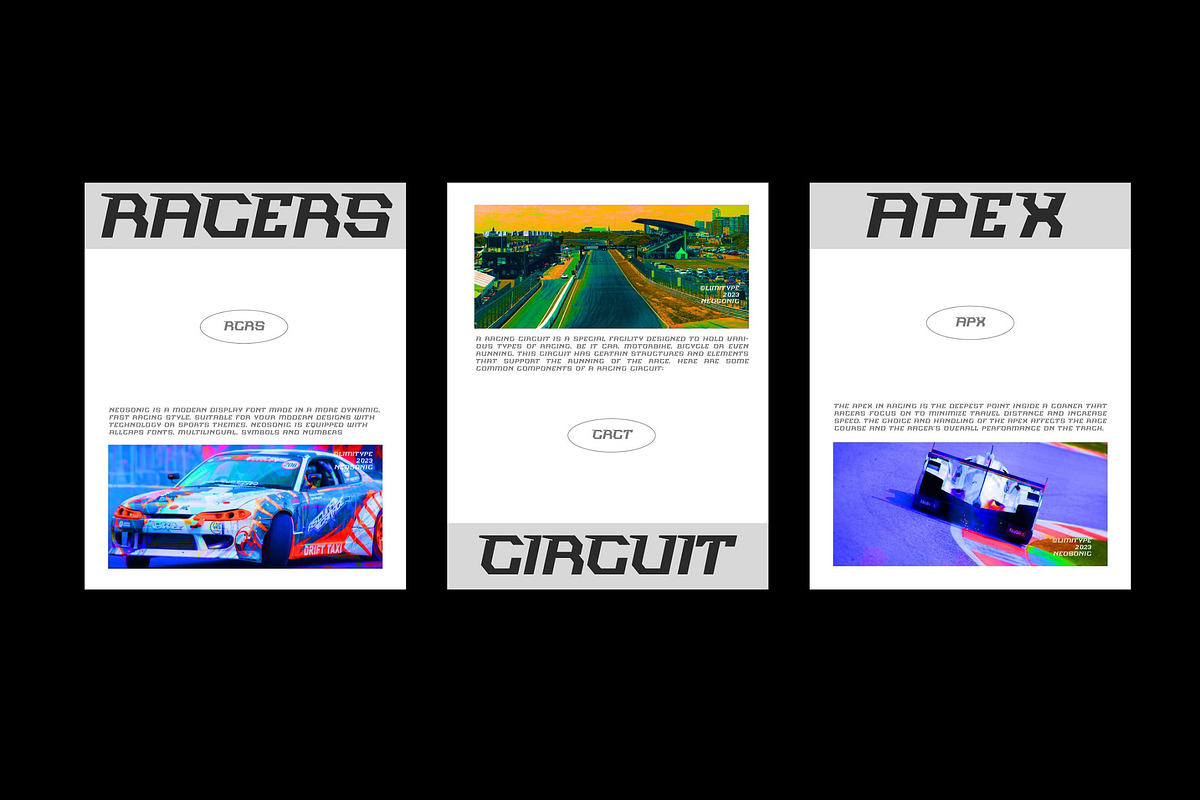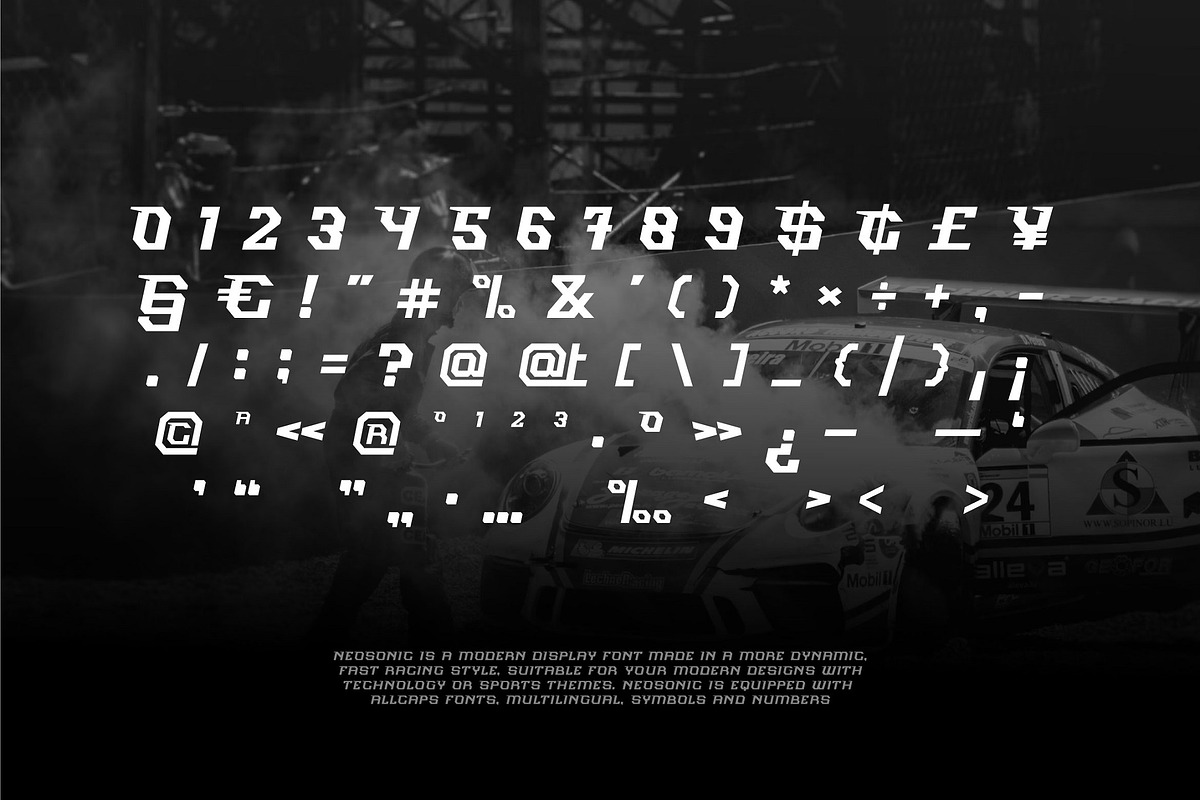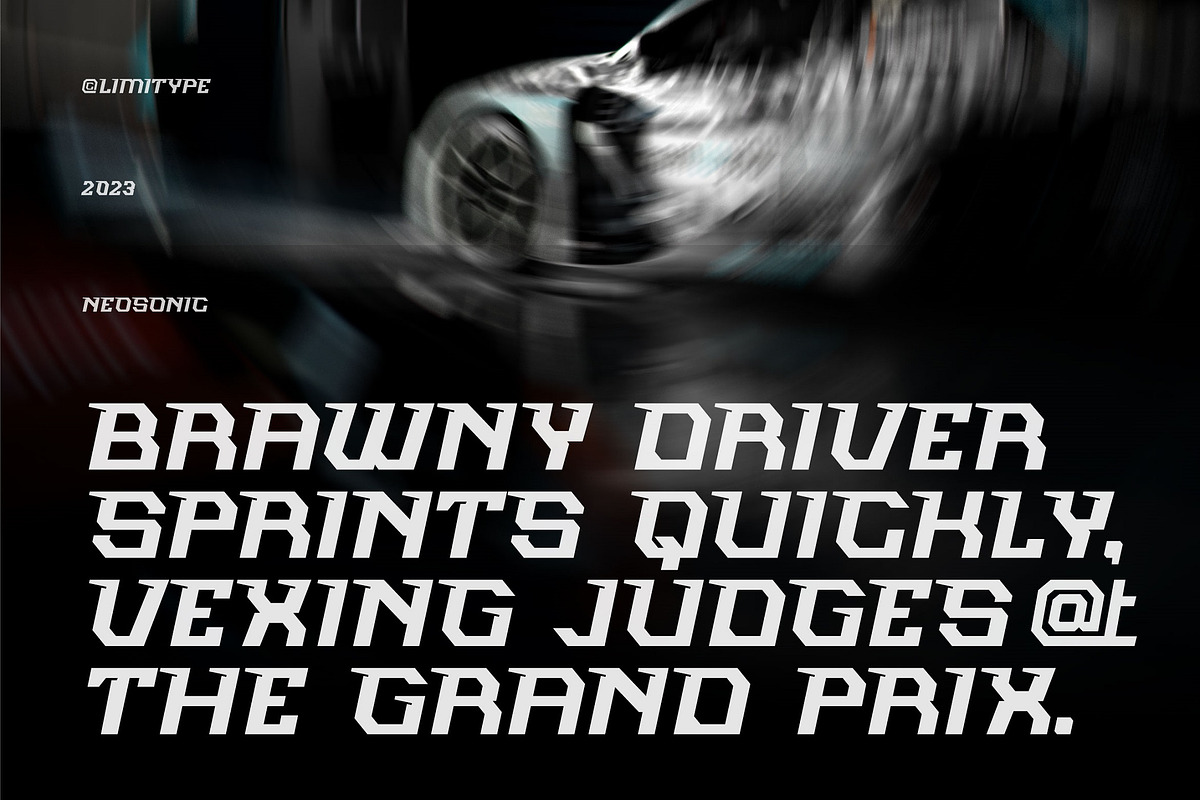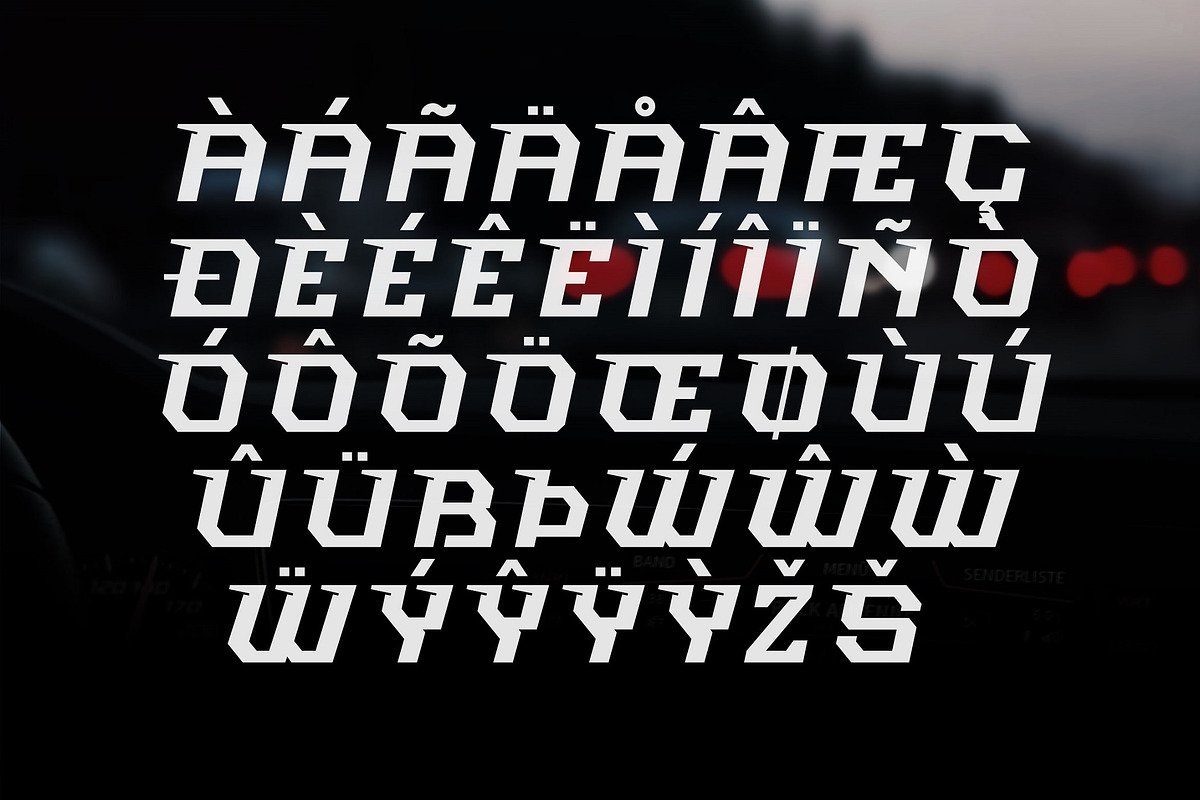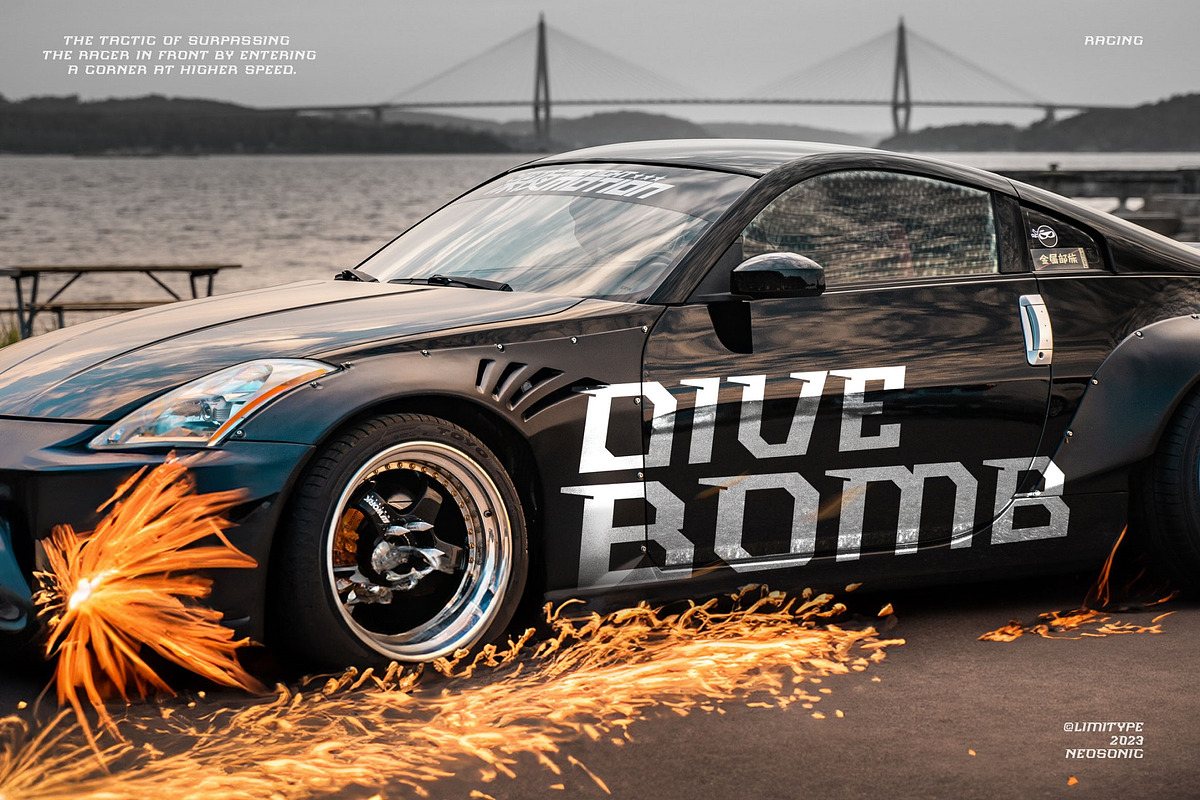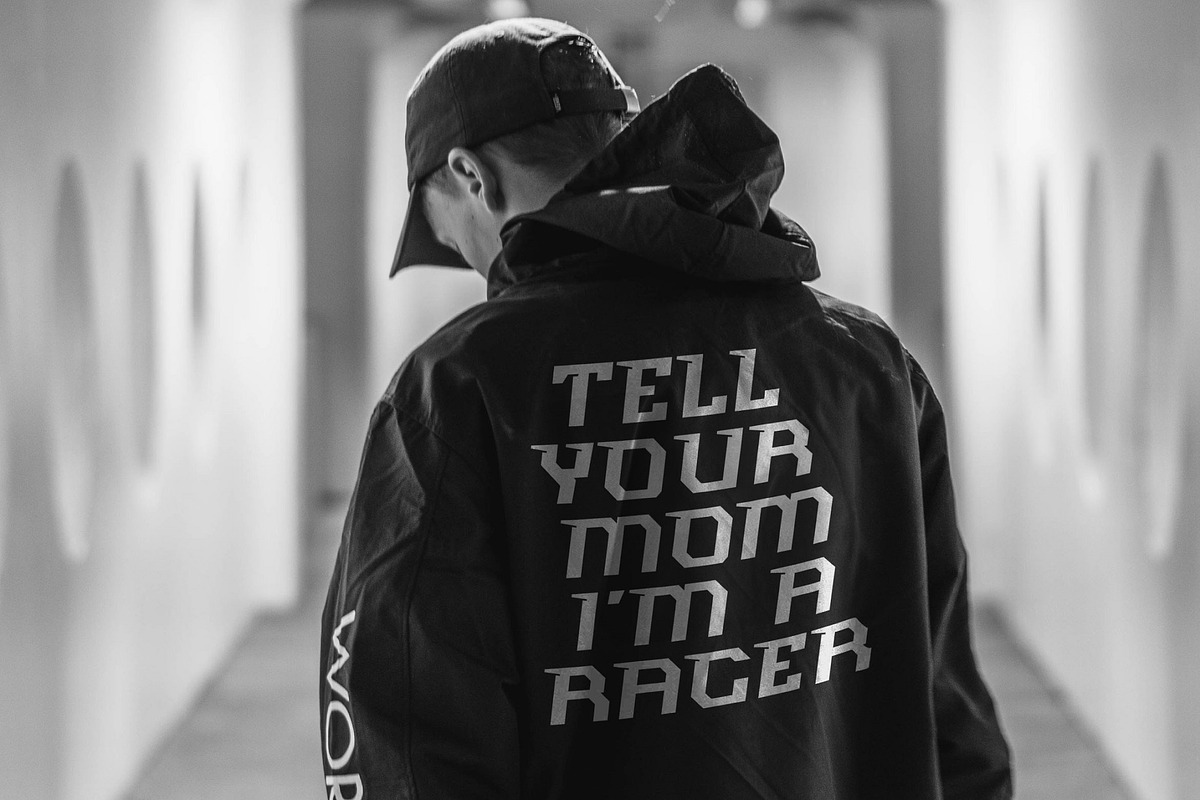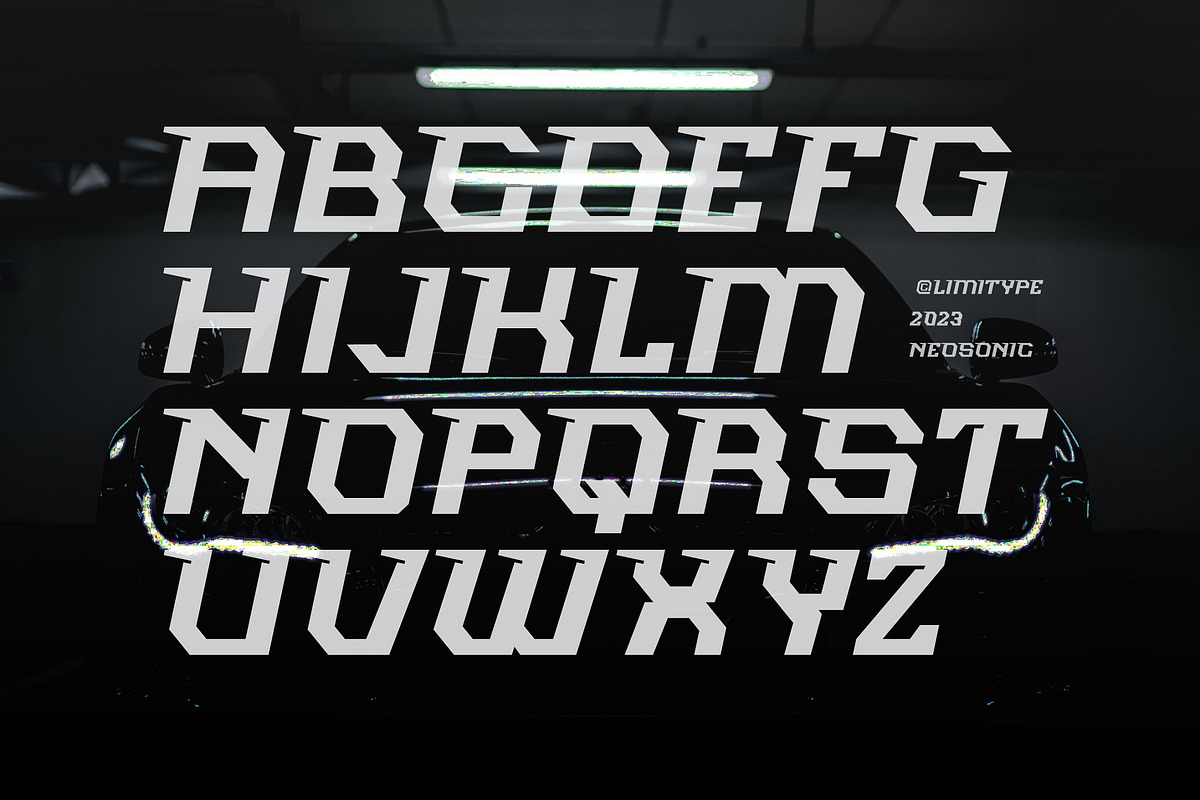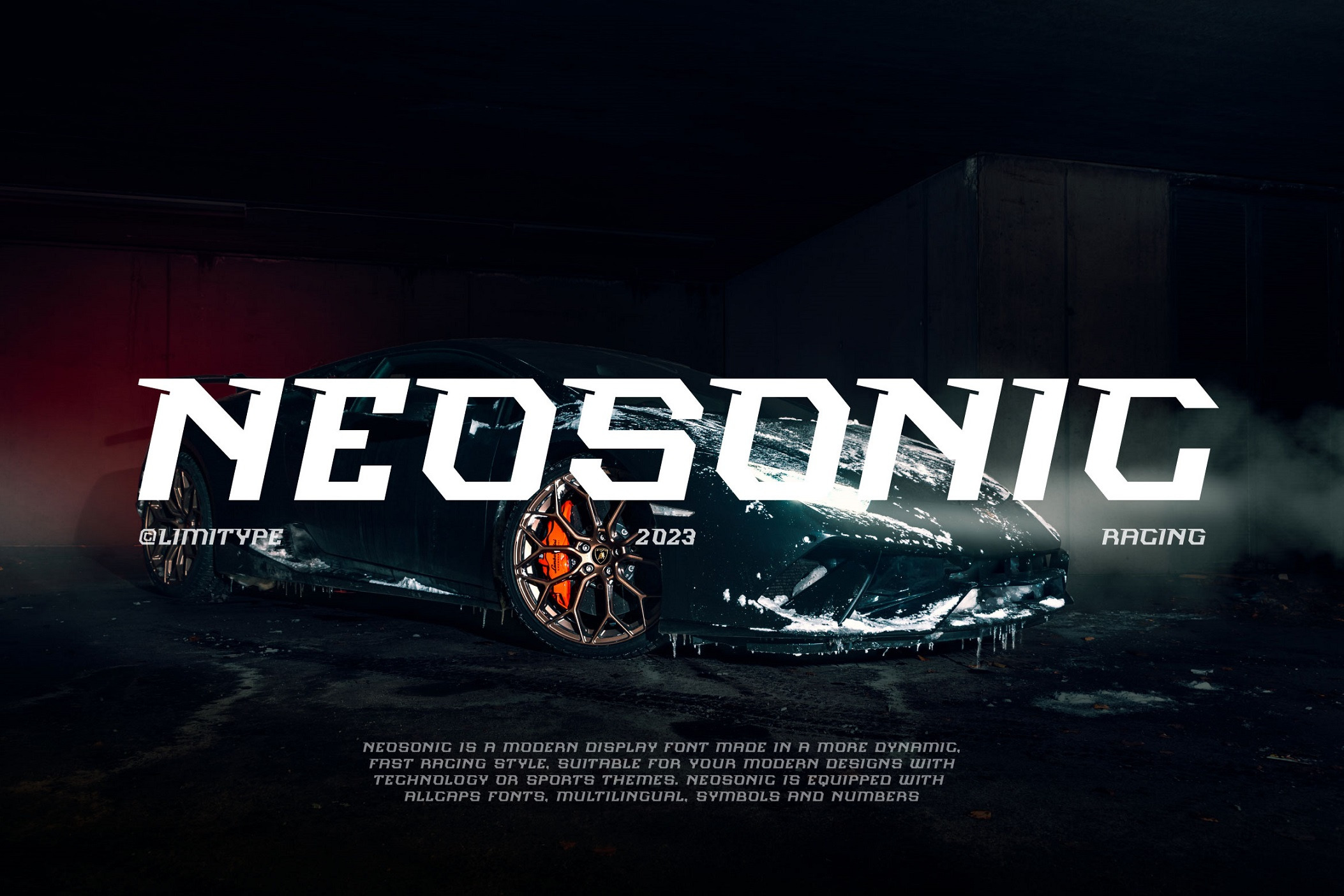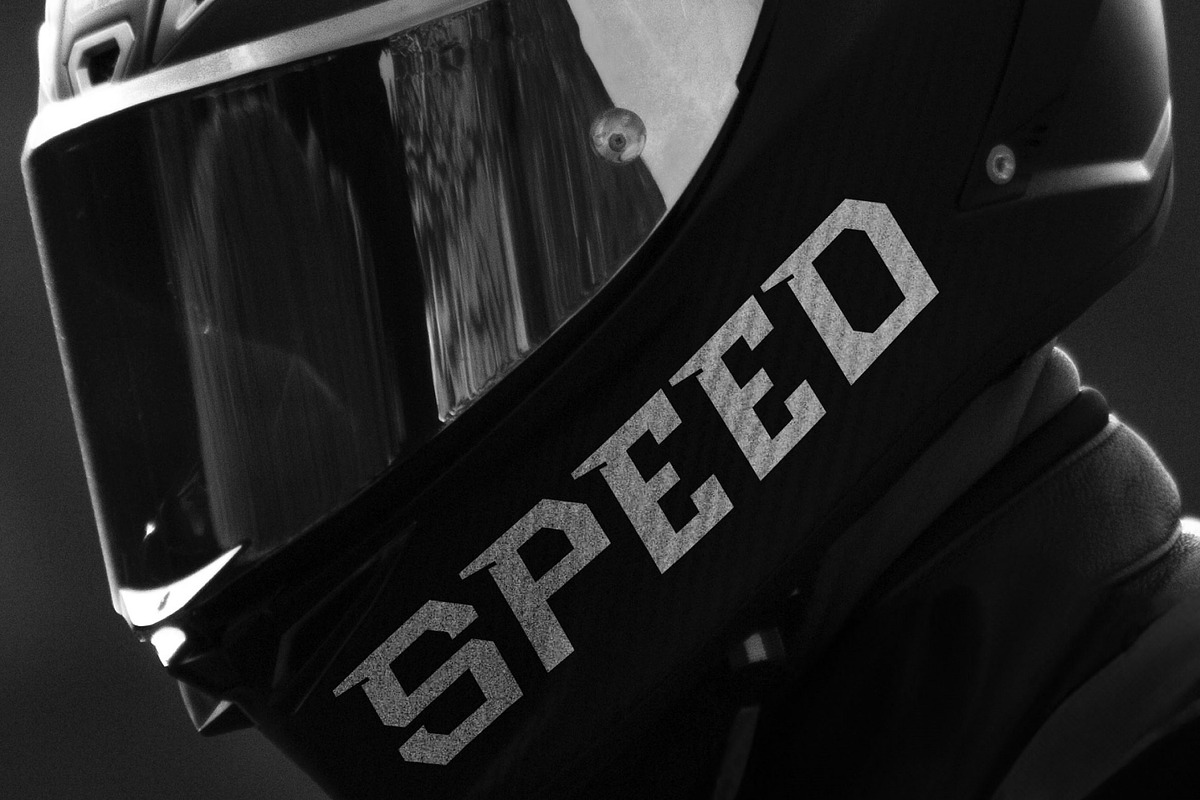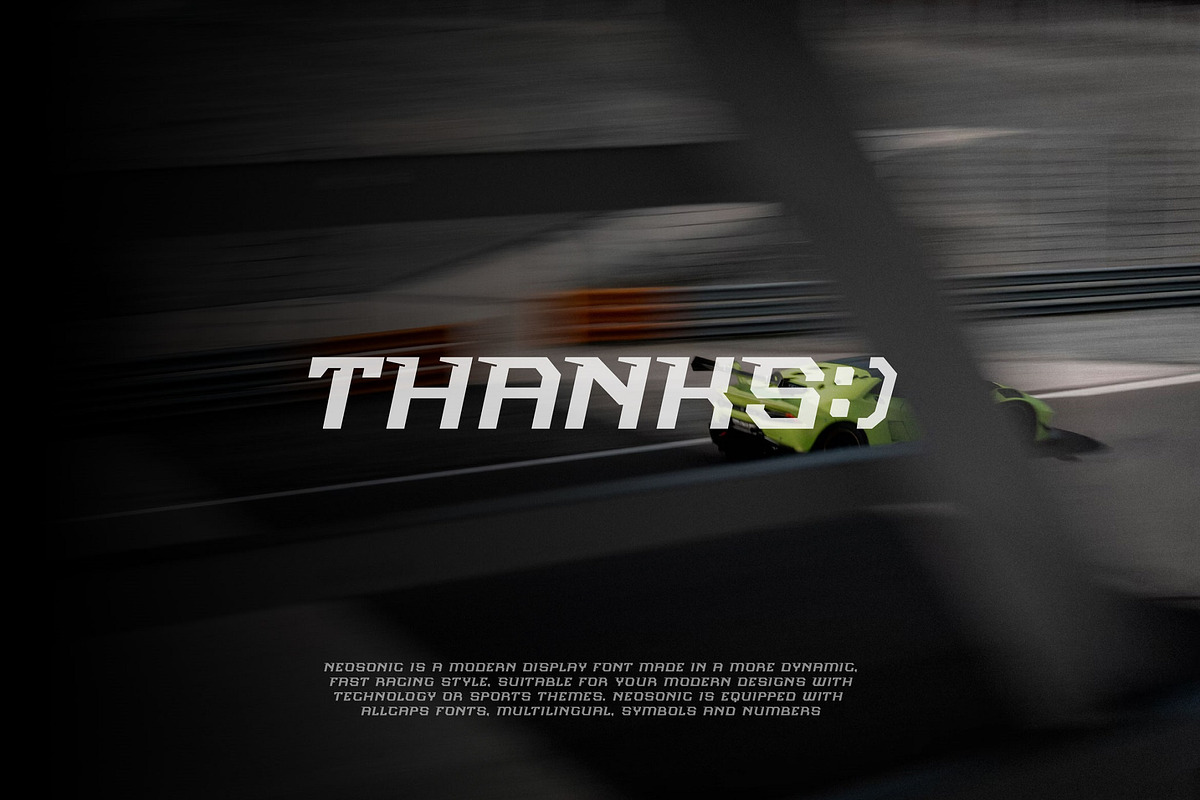
Neosonic - Futuristic Font
Neosonic is a modern display font made in a more dynamic, fast racing style, suitable for your modern designs with technology or sports themes.
Neosonic comes complete with :
- Allcaps Font
- Number & Symbols